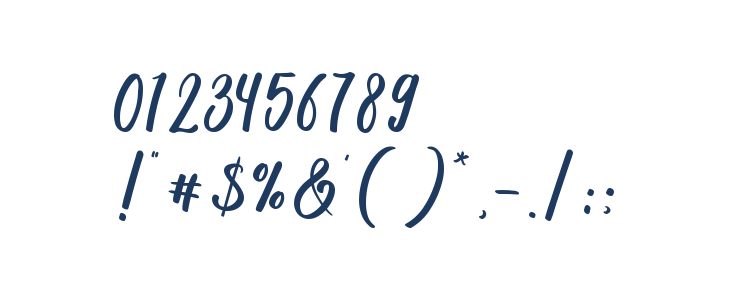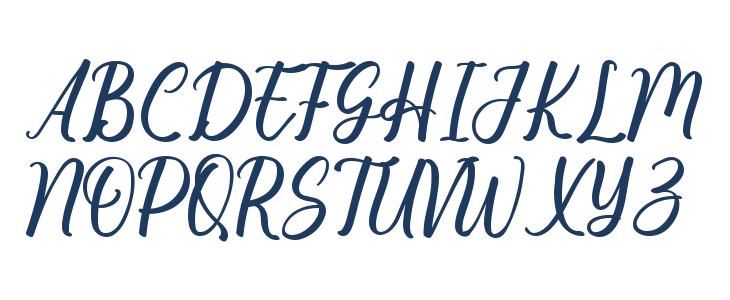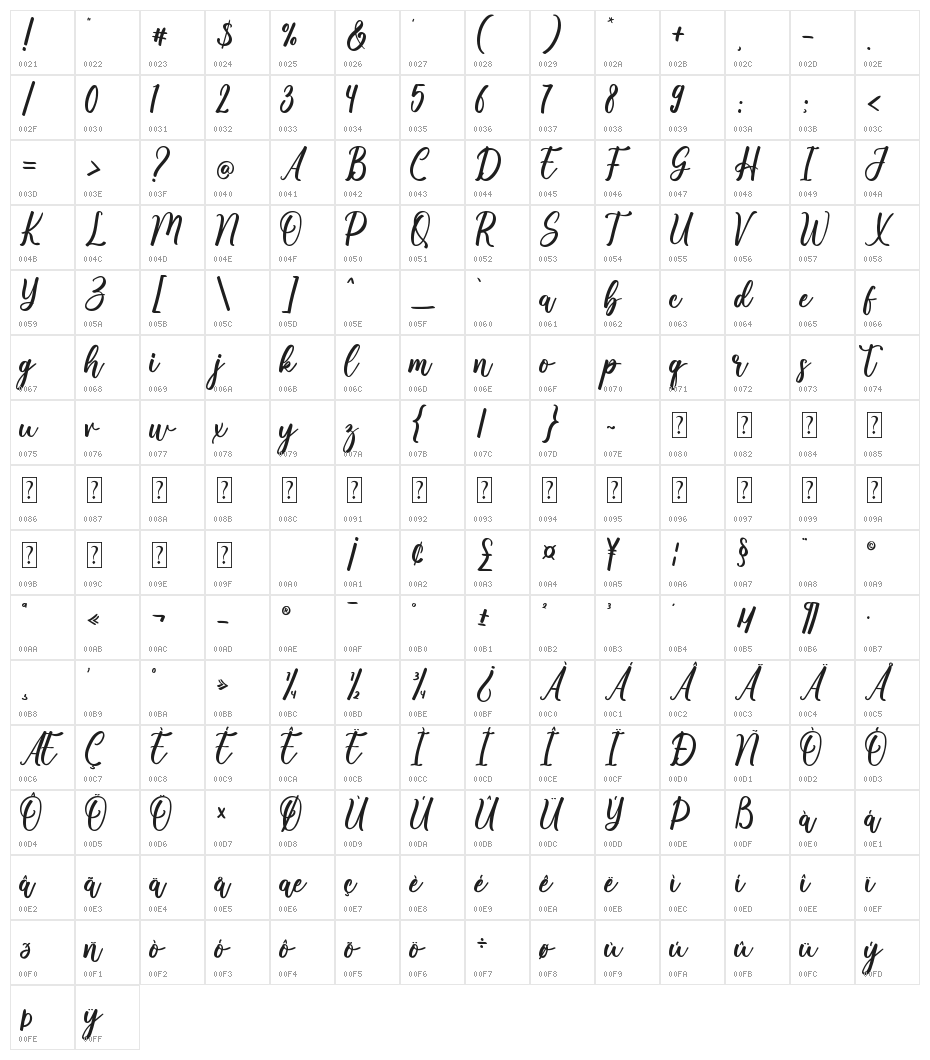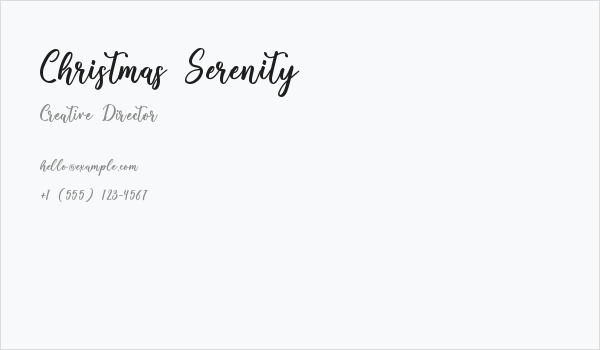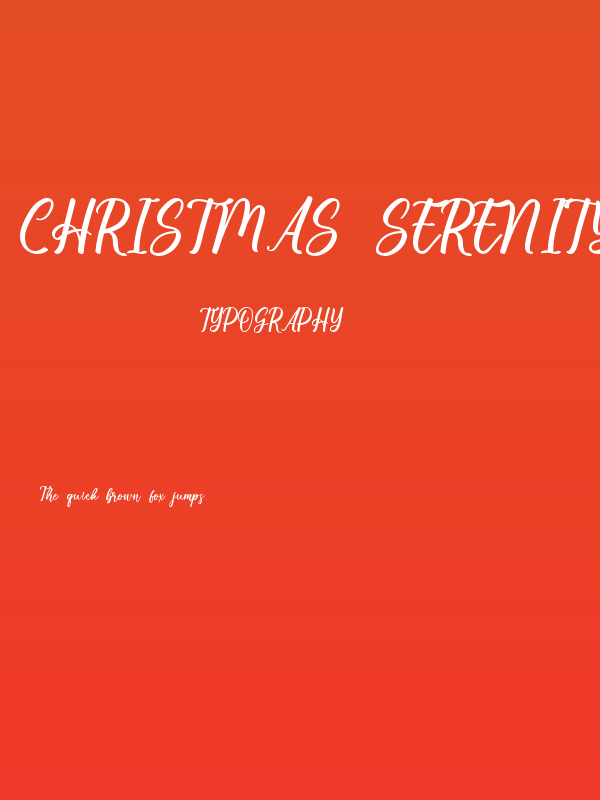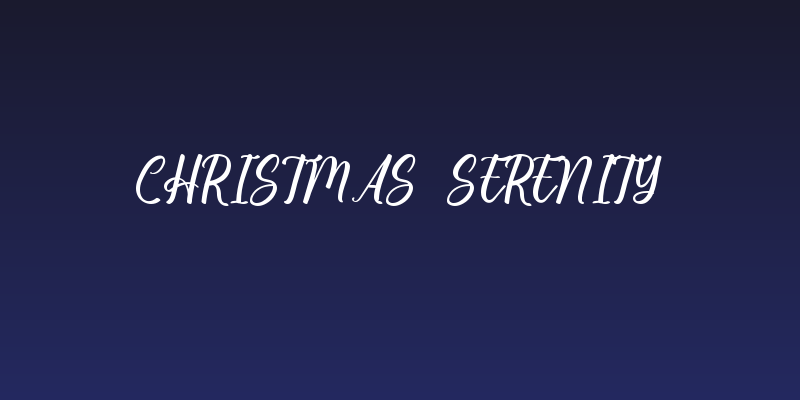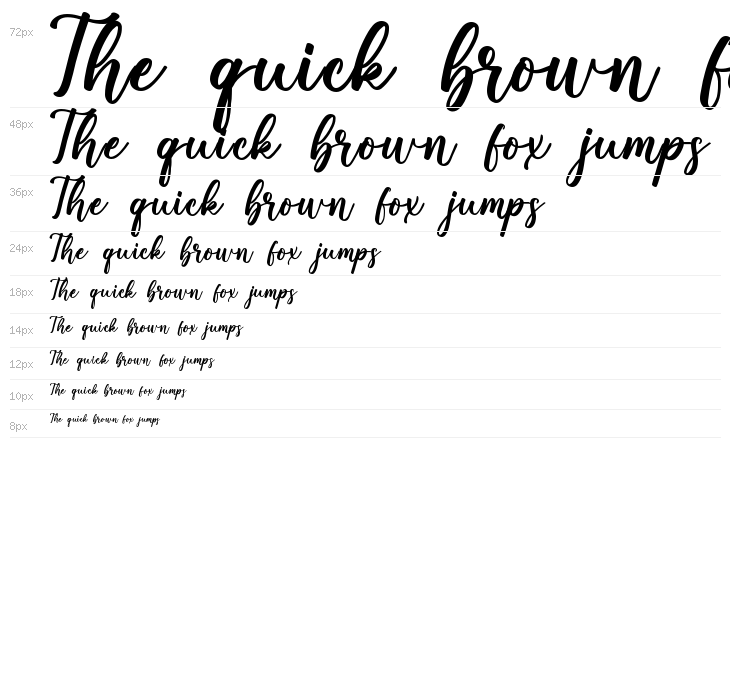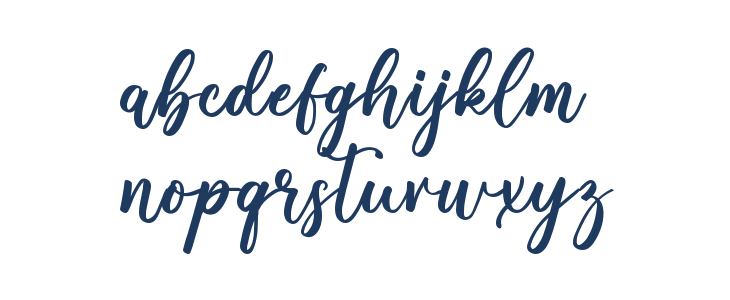
Christmas Serenity Font
Christmas Serenity Description
A flowing, cursive script font with smooth, connected strokes and a handwritten appearance. The characters have a playful yet elegant style, with moderate contrast in stroke thickness and rounded terminals.
| Overall Style | Decorative, Handwritten, Elegant |
| Use Case | Headlines, Logos, Invitations, Decorative text |
| Proposed Projects | Greeting cards, invitations, branding, social media graphics, festive designs. |